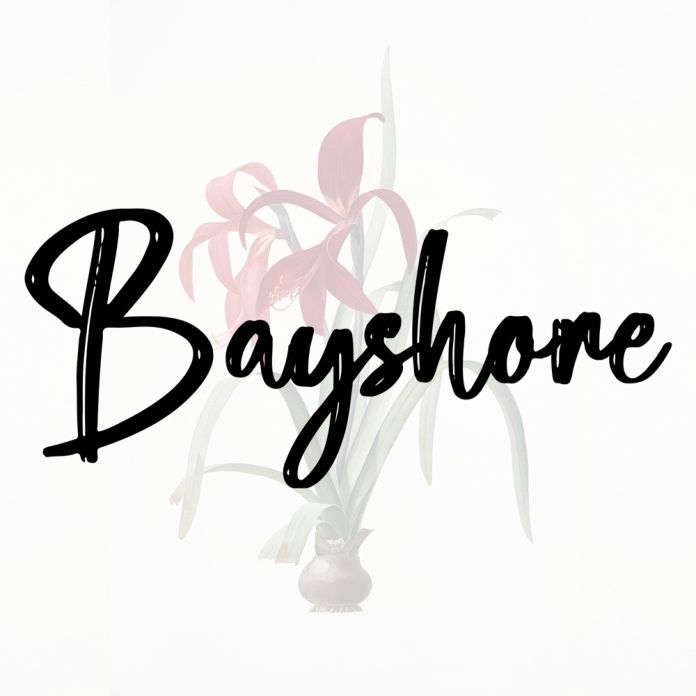
Bayshore City Brite is a handwritten script font that is made to look natural and also very stunning to use on wedding invitations, thank you cards, quotes, greeting cards, logos, business cards, and any other design that requires a cool handwritten touch.